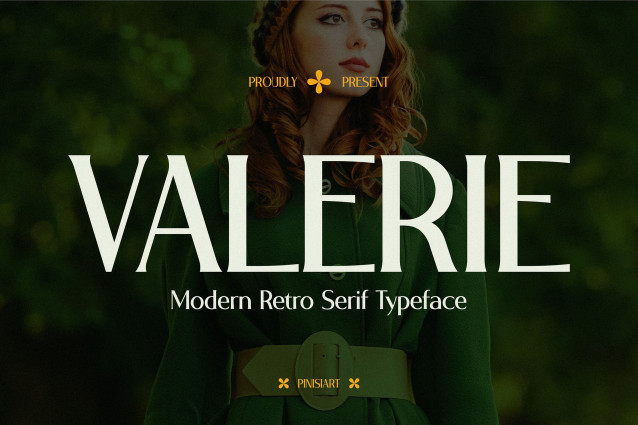
Valerie Font
Valerie Font is a modern retro serif typeface with elegance and personality. It combines vintage charm with a sleek, modern touch. Moreover, its bold yet refined letterforms create a balance between style and readability. As a result, VALERIE adds sophistication to branding, packaging, social media, and editorial work. Its graceful curves and retro details make every design look polished. Therefore, this font feels both nostalgic and contemporary at once, making it truly unique.
In addition, VALERIE includes uppercase, lowercase, numbers, and punctuation that are designed to flow harmoniously. Each character has been carefully crafted, ensuring consistency in every layout. Because of this, the typeface works well for both large headlines and smaller subheadings. While many fonts lose clarity when scaled down, VALERIE remains elegant at any size. This adaptability makes it a valuable addition to any designer’s toolkit.
Instagram Font VALERIE Perfect For Designers, Creators, and Brands
VALERIE is more than just a font—it’s a versatile design solution. For example, graphic designers can use it for logos, posters, and marketing campaigns. In addition, social media creators will love its chic look for Instagram posts, stories, and quotes. As a result, it gives any feed a professional and stylish identity that captures attention.
Business owners in fashion, lifestyle, beauty, or wellness can also use VALERIE to elevate their branding. Consequently, it makes packaging and product visuals look premium and appealing. Moreover, editorial designers can benefit from its strong personality in magazines, covers, and article headers. Since it works equally well in print and digital media, the design possibilities are endless.
Even personal projects can shine with this typeface. For instance, wedding invitations, event posters, or stationery all gain a touch of elegance. Meanwhile, VALERIE adapts easily to different moods—sometimes bold and striking, other times soft and refined. Its flexibility ensures that every creative project can benefit from its unique retro aesthetic.